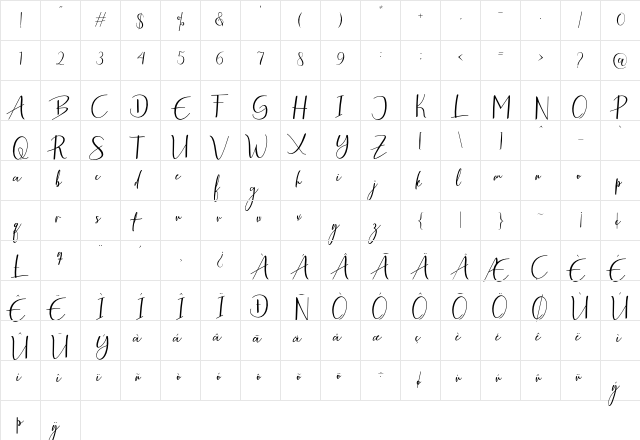
Antefand Regular
| Foundry | Mightype |
| Designer | Munawir |
Design Context for Antefand Typeface
Antefand is a composed and adaptable typeface that performs quietly and consistently across a wide range of design contexts.